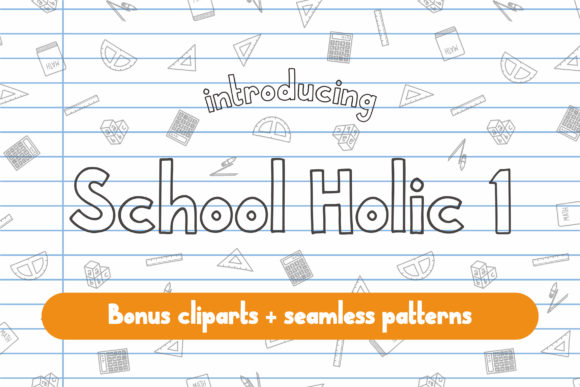
Get ready for school with School Holic 1 Font, the display font that will make your projects stand out! Created by Orenari, this friendly and approachable font will add a touch of charm to any school-related design. Whether you're creating posters, flyers, or social media graphics, School Holic 1 Font is the perfect choice to capture the spirit of education.
With its playful and inviting curves, School Holic 1 Font is designed to make learning fun and engaging. The font's unique character will add personality to your work, making it stand out from the crowd. Embrace the playful side of education with School Holic 1 Font and let your creativity shine through!
So why settle for ordinary fonts when you can have School Holic 1 Font? This display font is not only visually appealing but also incredibly versatile. Its playful charm is perfect for a wide range of school-themed projects, from playful worksheets to exciting lesson plans. Download School Holic 1 Font today and unlock a world of creative possibilities!